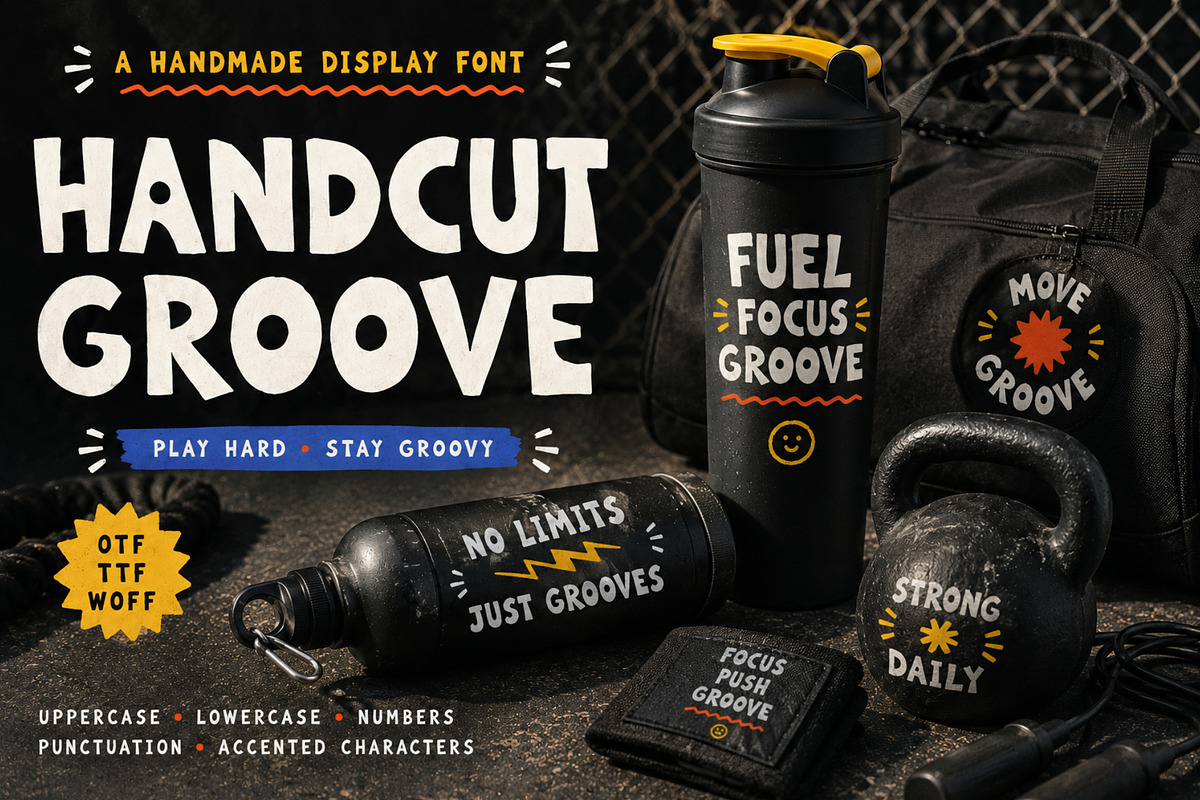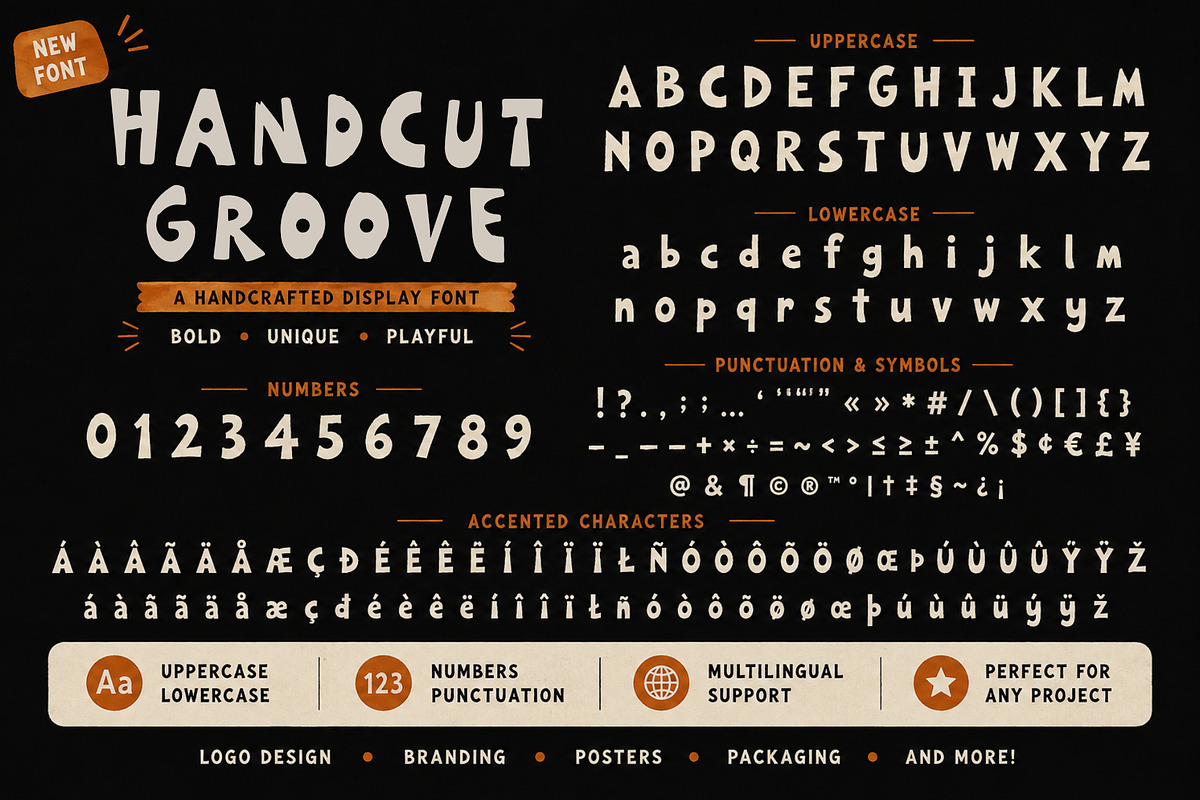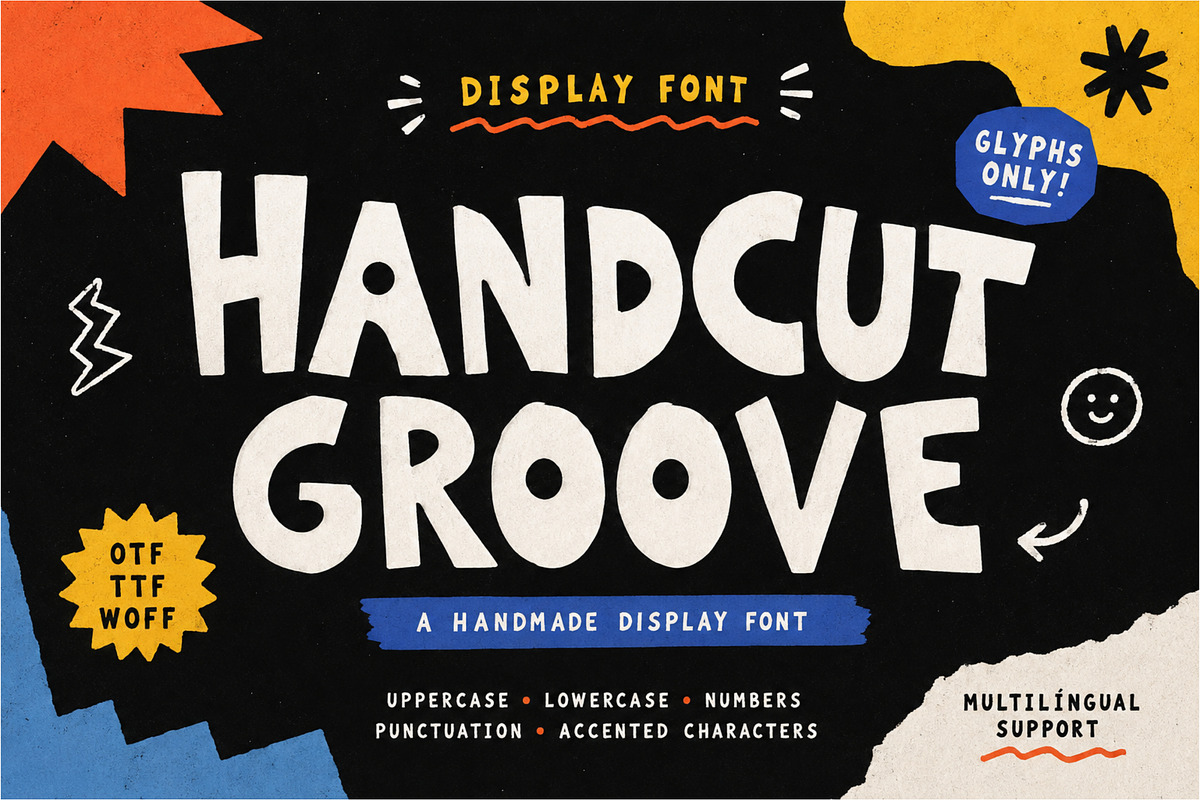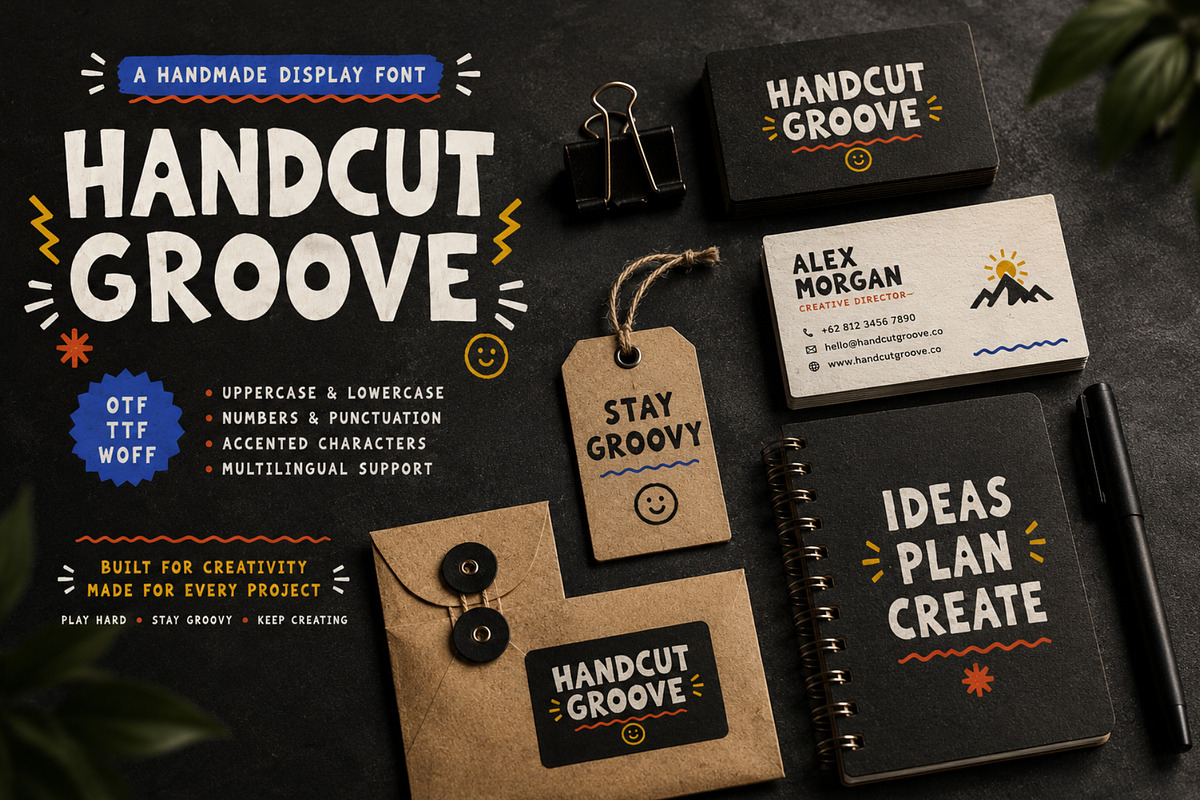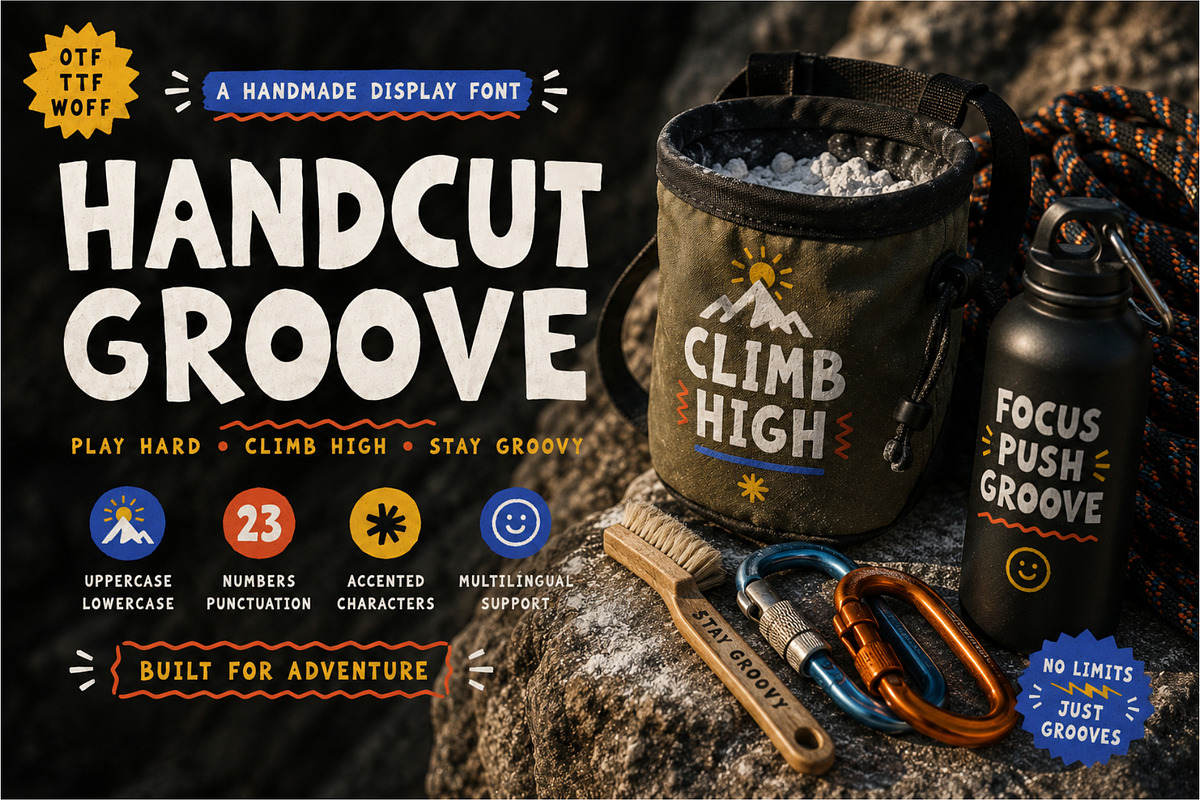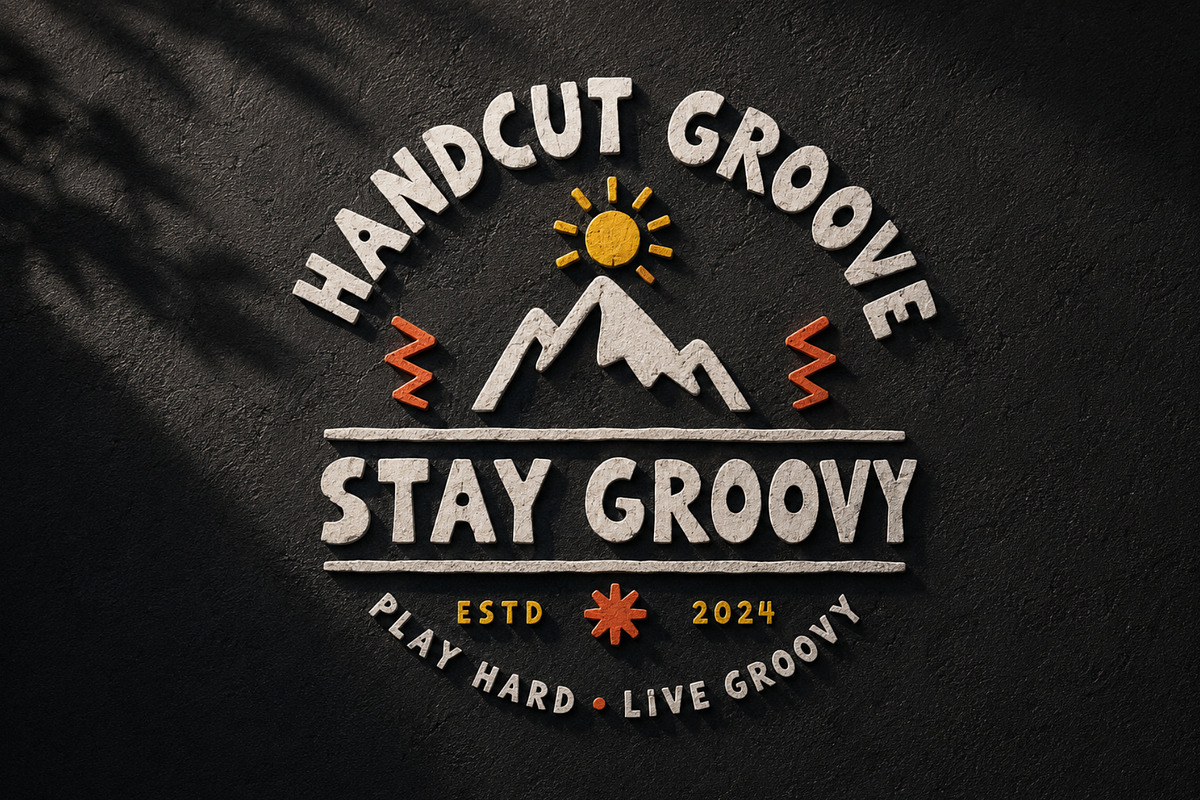
Handcut Groove
Handcut Groove — Handcrafted Display Font
Handcut Groove is a bold and playful handcrafted display font designed to bring a strong artistic personality to your creative projects. Its distinctive irregular shapes, organic details, and slightly distressed character create a unique handmade feel while maintaining excellent visual impact.
Perfect for projects that need a bold, expressive, and memorable typographic style, Handcut Groove works beautifully for logo design, branding, posters, packaging, headlines, editorial designs, labels, invitations, social media graphics, and more.
The font includes uppercase and lowercase characters, numbers, punctuation, symbols, and a wide selection of accented characters for multilingual support.
• Uppercase & lowercase • Numbers & punctuation • Symbols & special characters • Multilingual / accented characters • Bold handcrafted display style • Distinctive and playful letterforms • Perfect for branding, posters, packaging, logos, headlines, and more
Handcut Groove is made for designers who want typography that feels handcrafted, bold, unconventional, and full of personality.